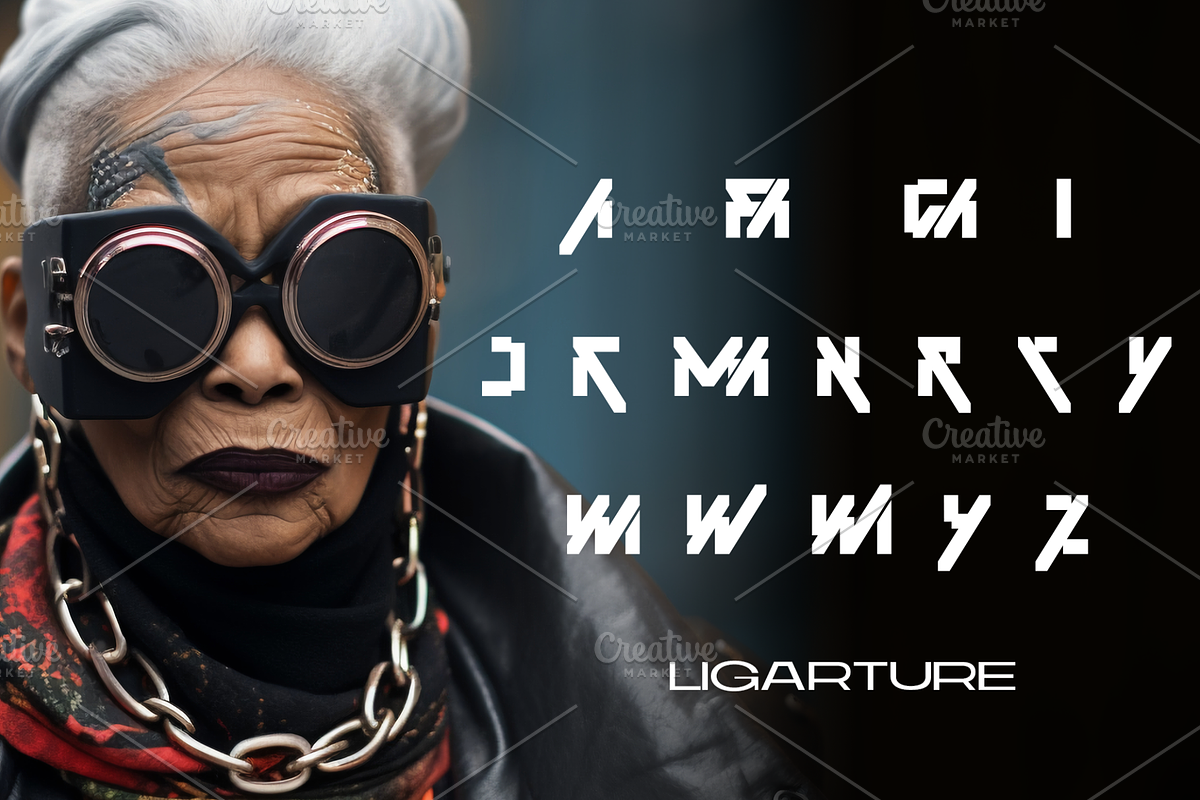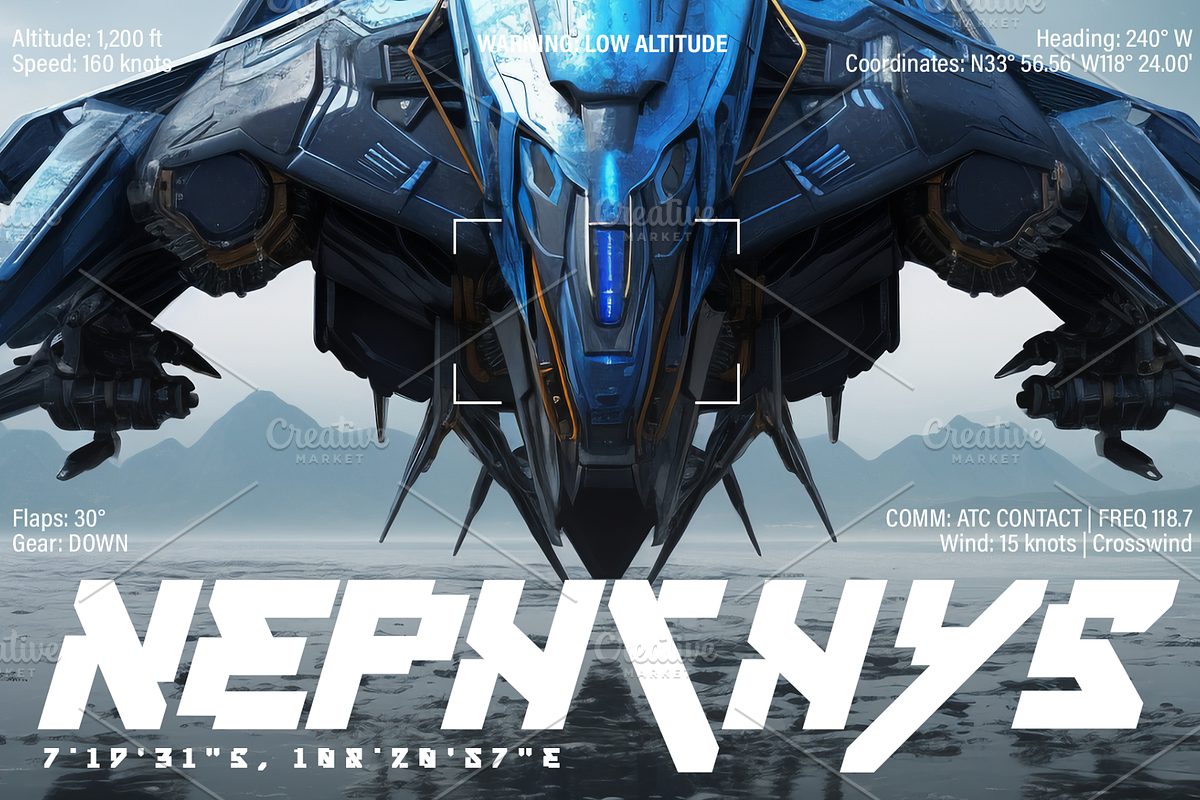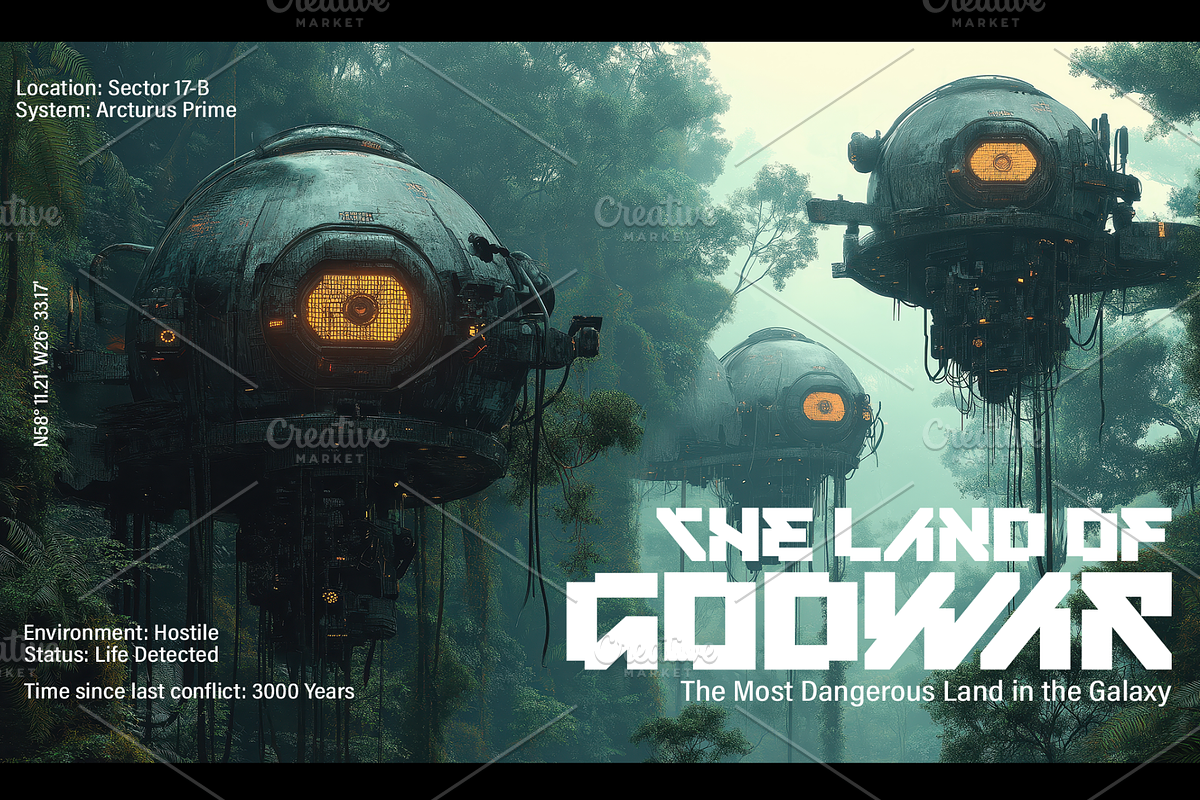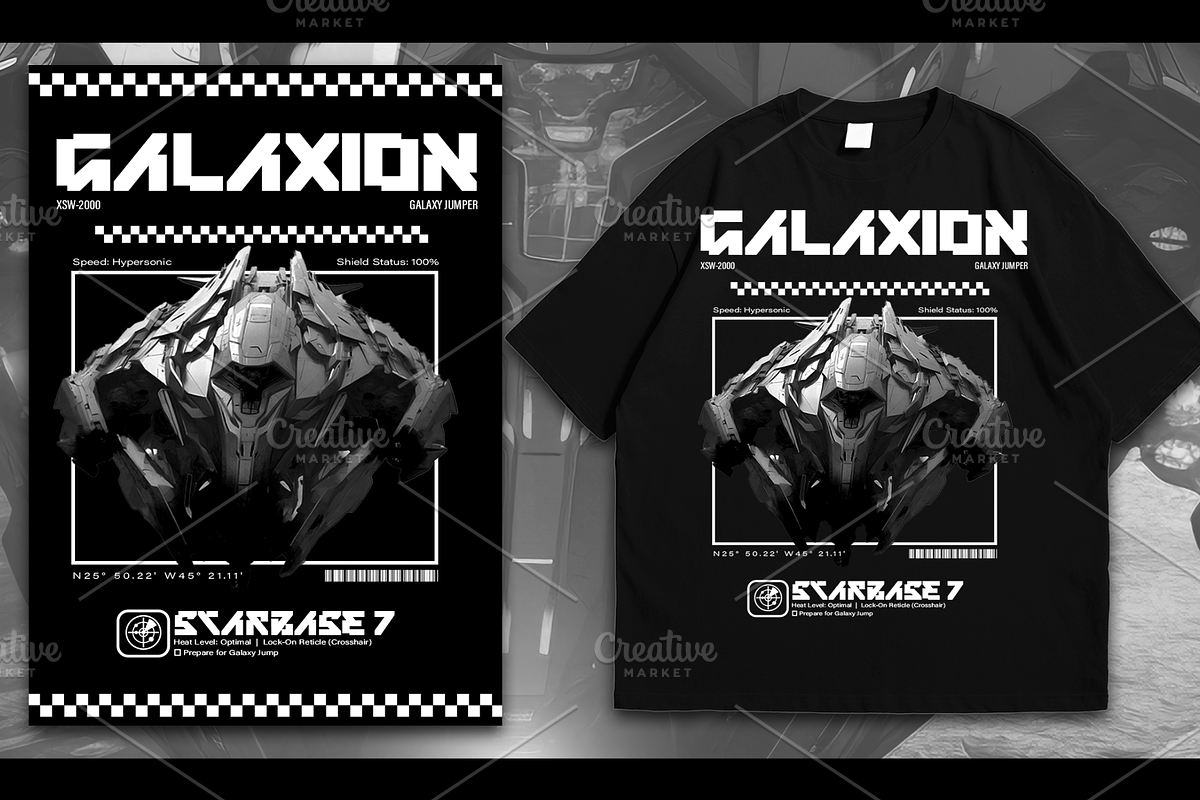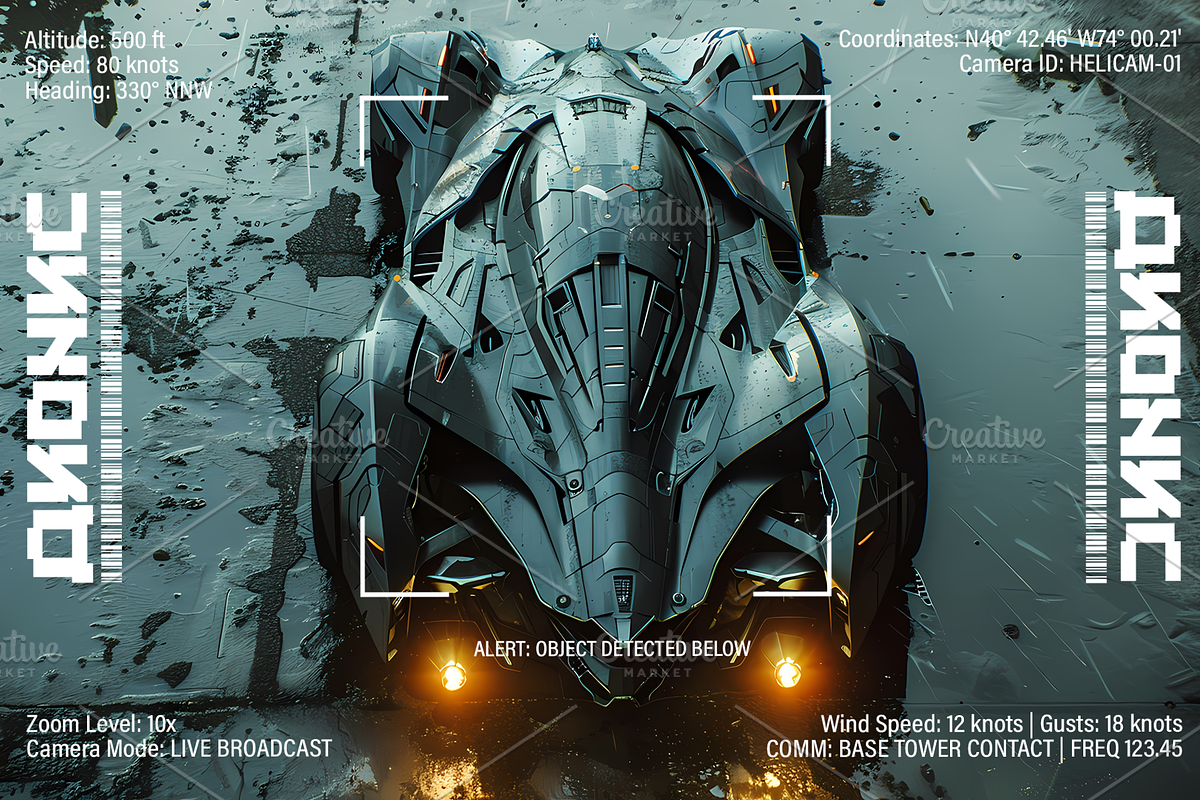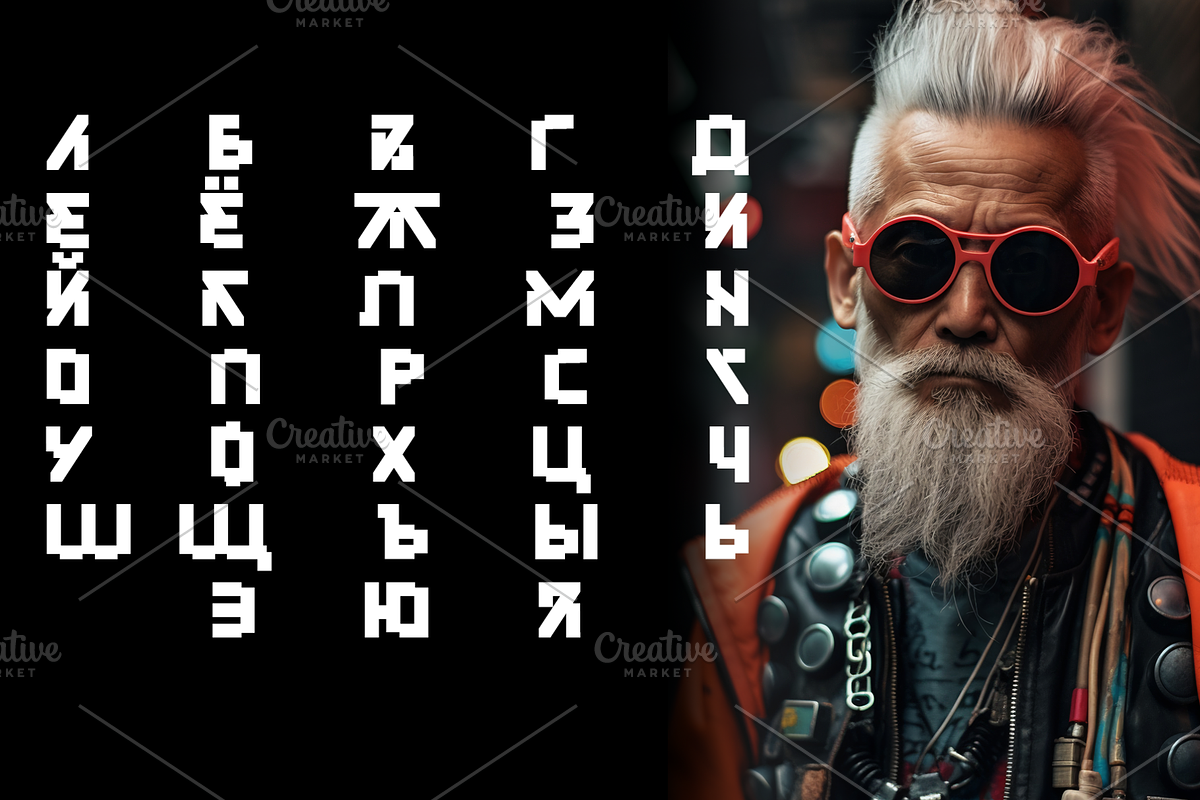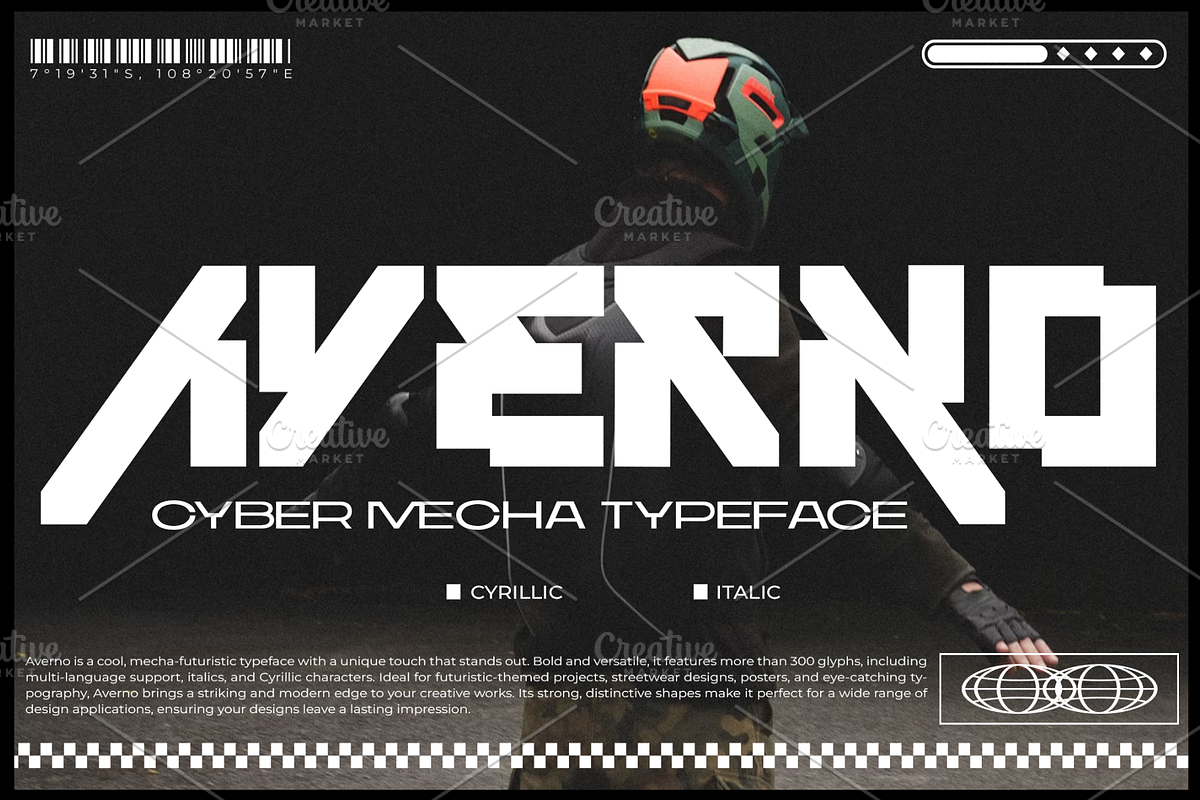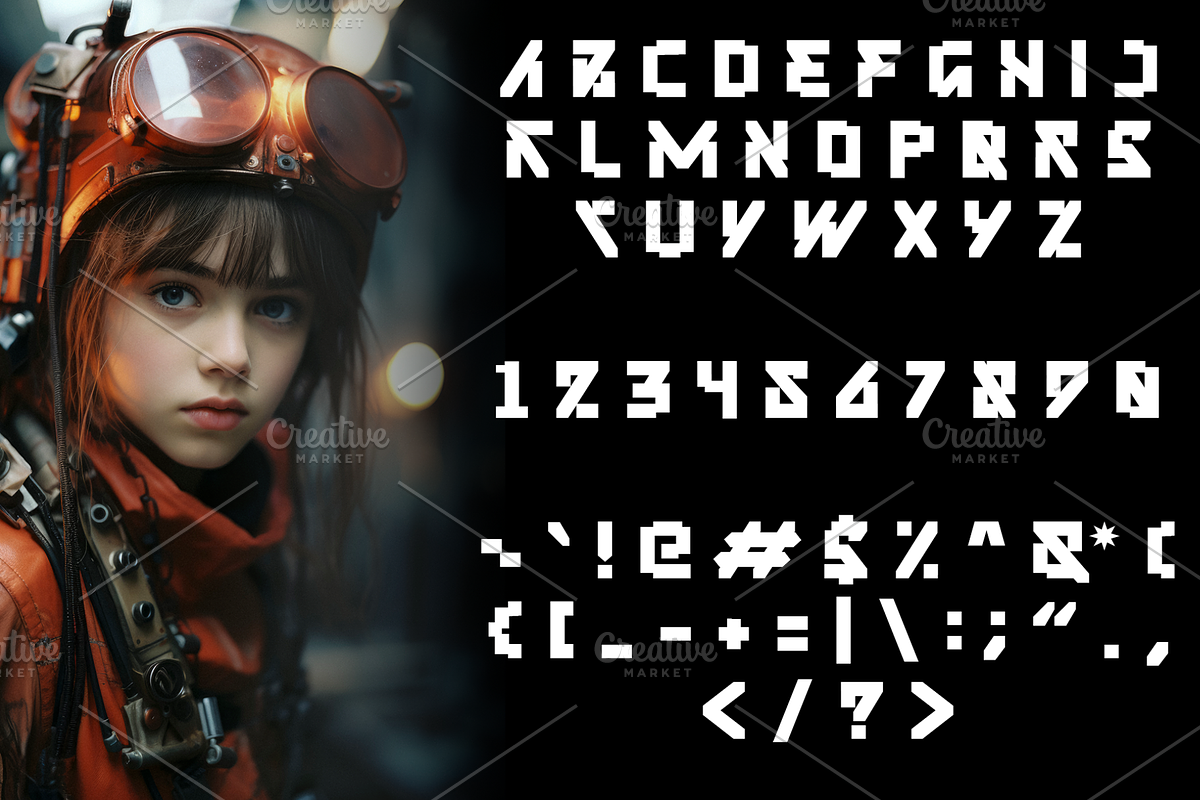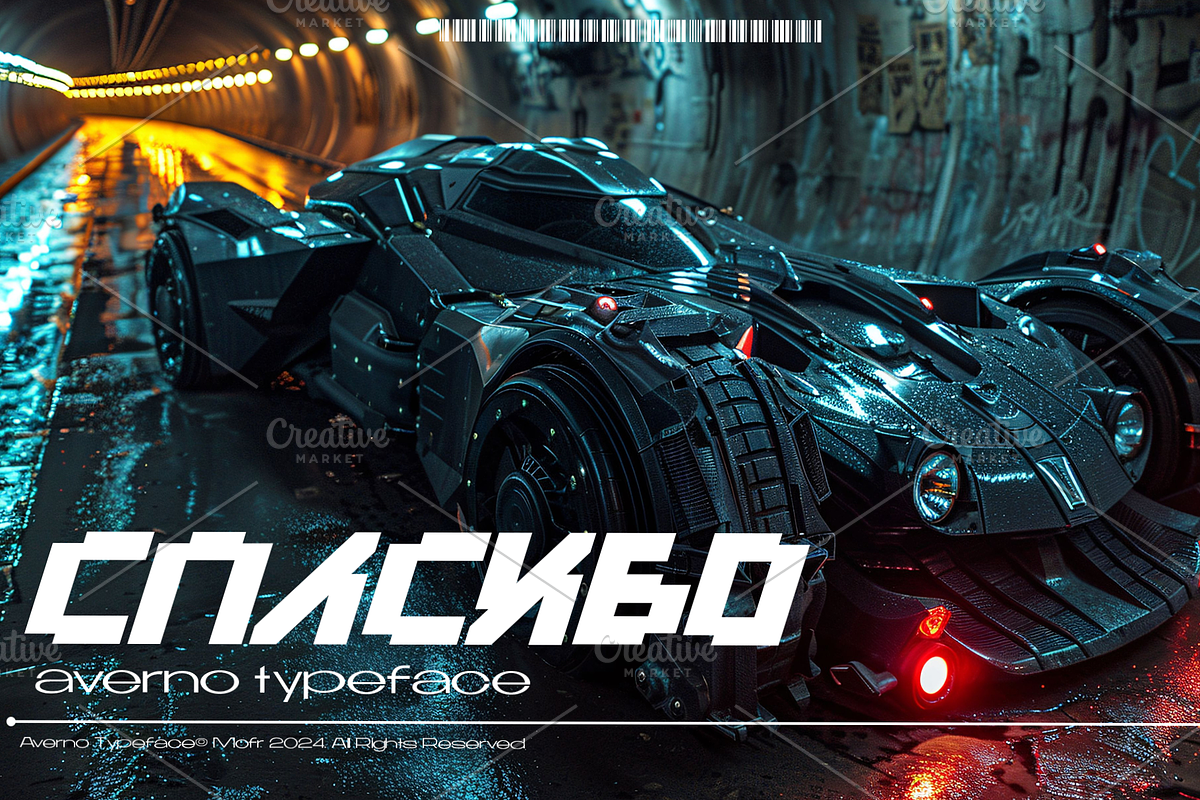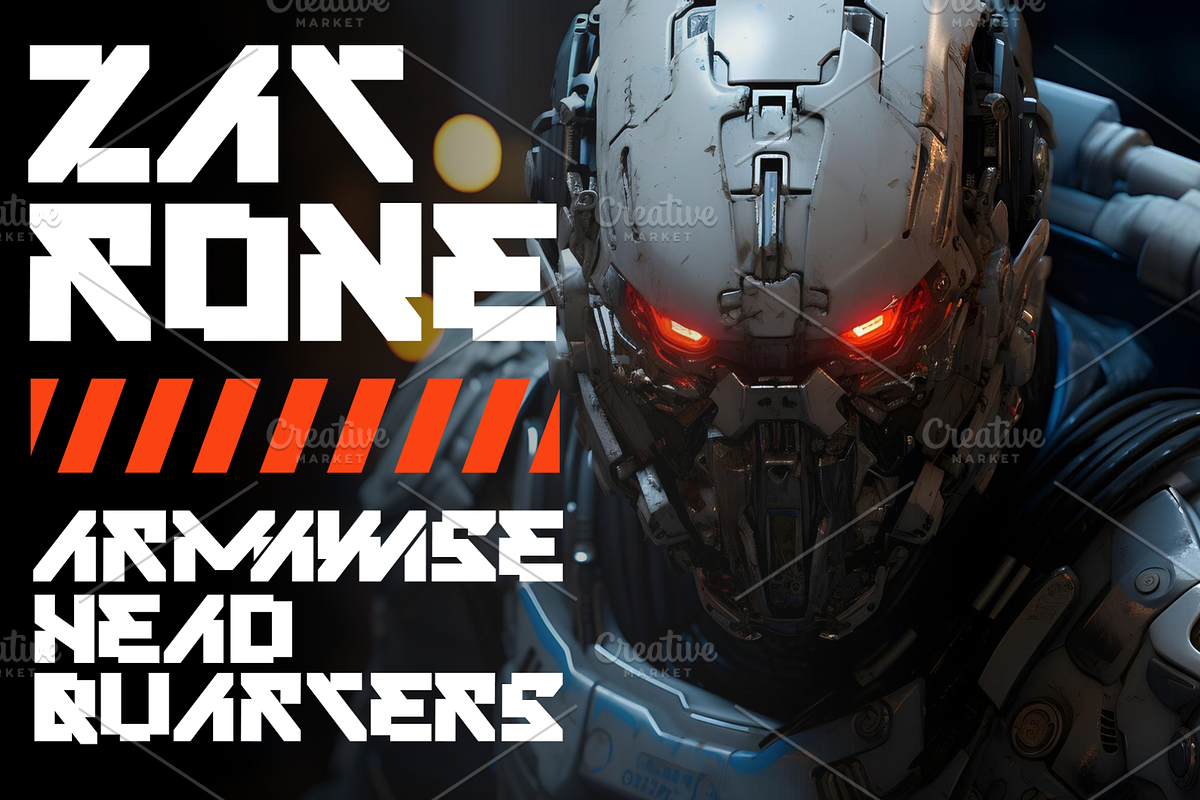
Averno - Cyber Mecha Typeface
Introducing Averno, an avant-garde typeface that uniquely blends cool mechanical aesthetics with an undeniable futuristic edge. Zealously bold and astoundingly versatile, this font showcases an impressive suite of over 300 glyphs for your creative opus. Beyond basic characters, Averno offers the alluring additions of multi-language support, engaging italics, and exquisitely crafted Cyrillic characters. Perfectly primed for cutting-edge projects - from streetwear designs and posters to trailblazing typography, Averno breathes a modern air of distinction into your creative ventures. With solid, stand-out shapes that are as diverse as they are distinguished, Averno ensures your designs don't just make a mark, but leave an indelible impact. Unleash the future of typography with Averno - where every stroke is a statement.